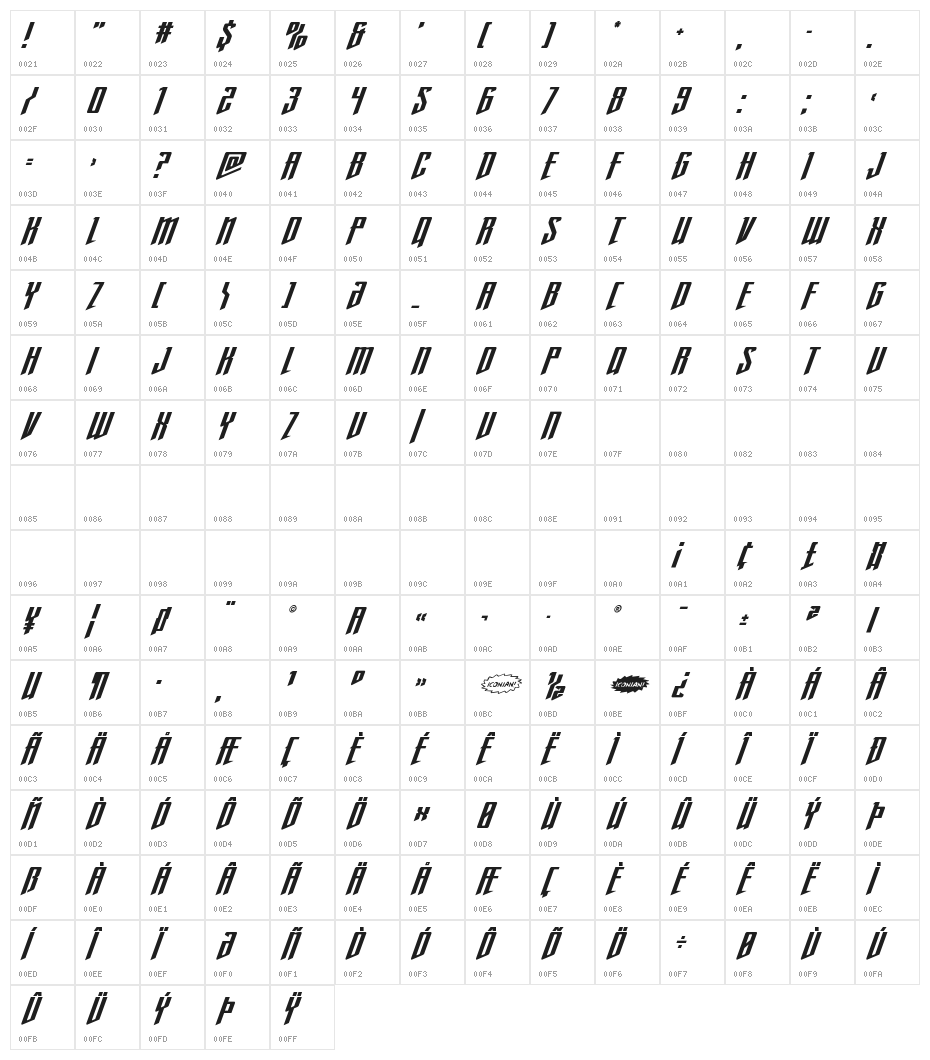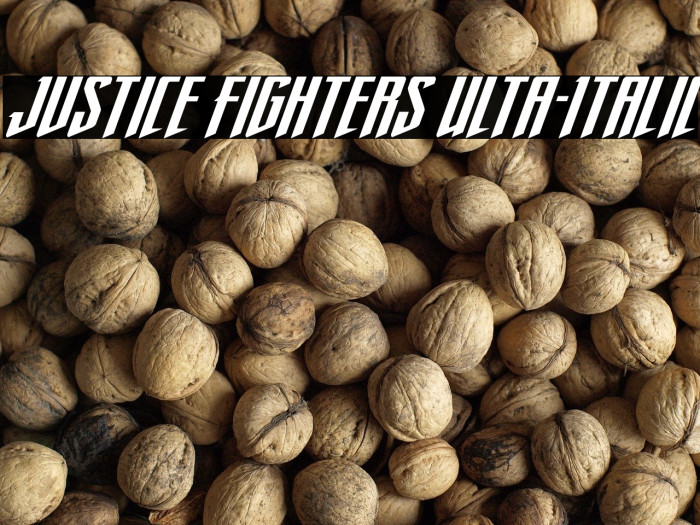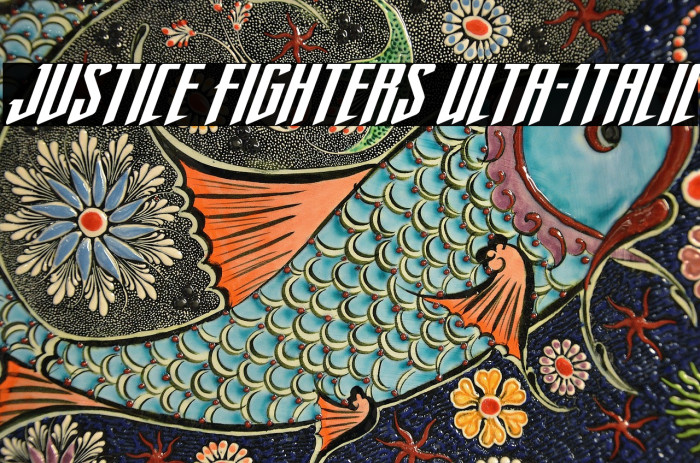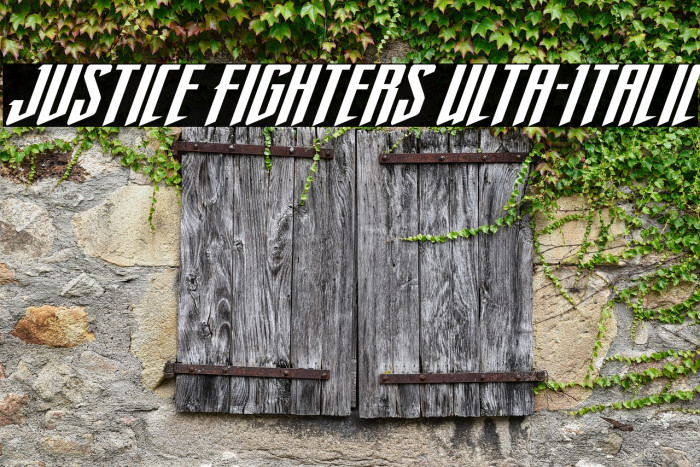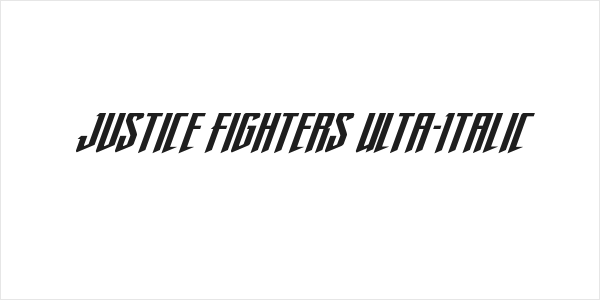
Justice Fighters Ulta-Italic Font
Justice Fighters Ulta-Italic Description
This font features a bold and dynamic design with a strong italic slant, giving it a sense of motion and energy. The characters are sharply angled with a futuristic and aggressive style, making it ideal for impactful headlines and attention-grabbing designs. The uppercase and lowercase letters maintain a consistent style, while the numerals and special characters complement the overall aesthetic. The font's boldness and unique character shapes make it stand out, suitable for projects that require a modern and edgy look.
| Proposed Projects | Ideal for sports branding, action movie posters, video game titles, and dynamic advertising campaigns. |